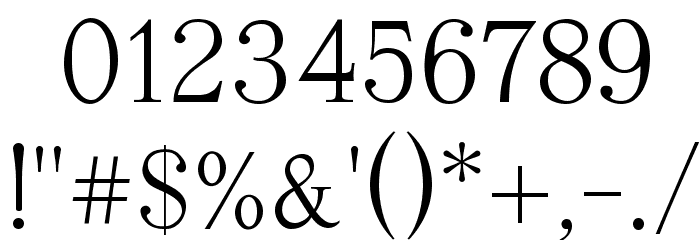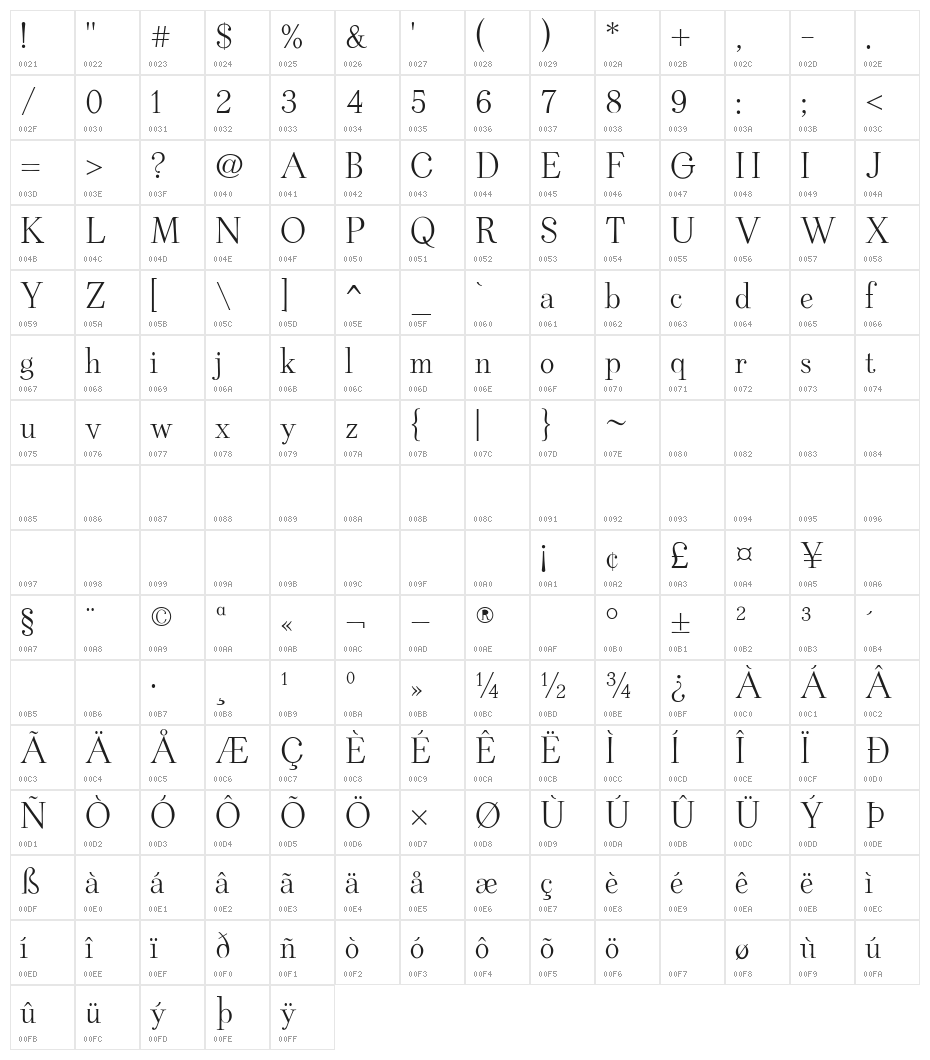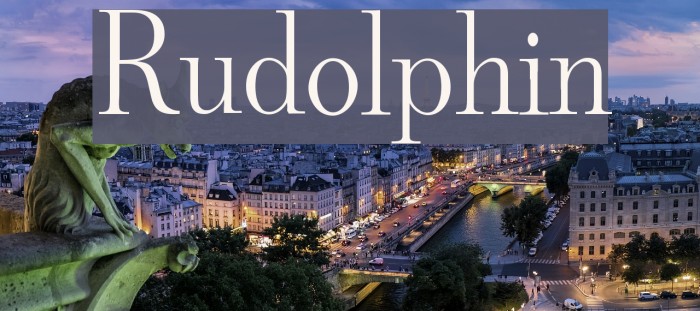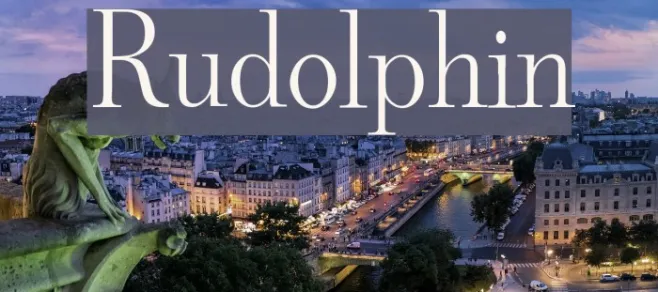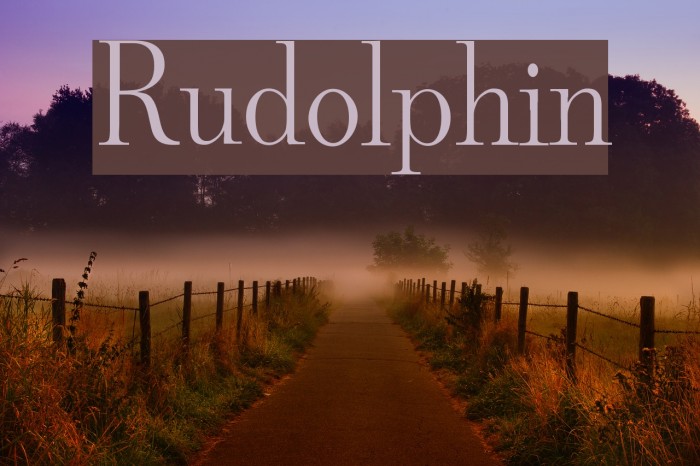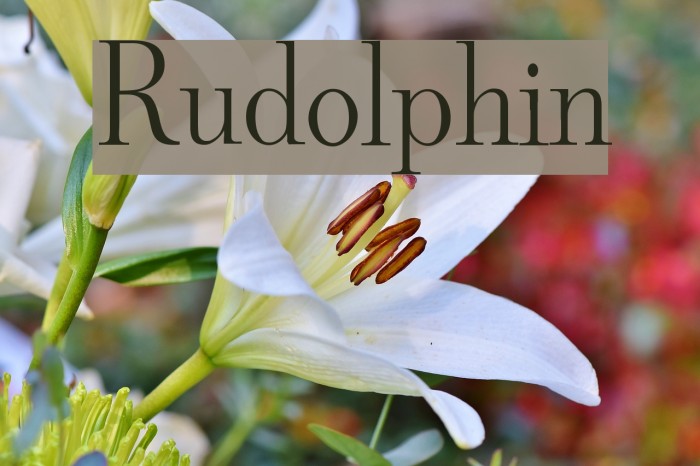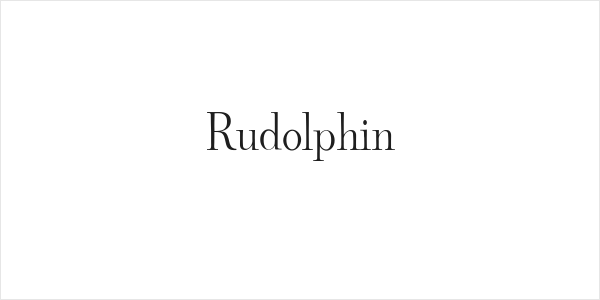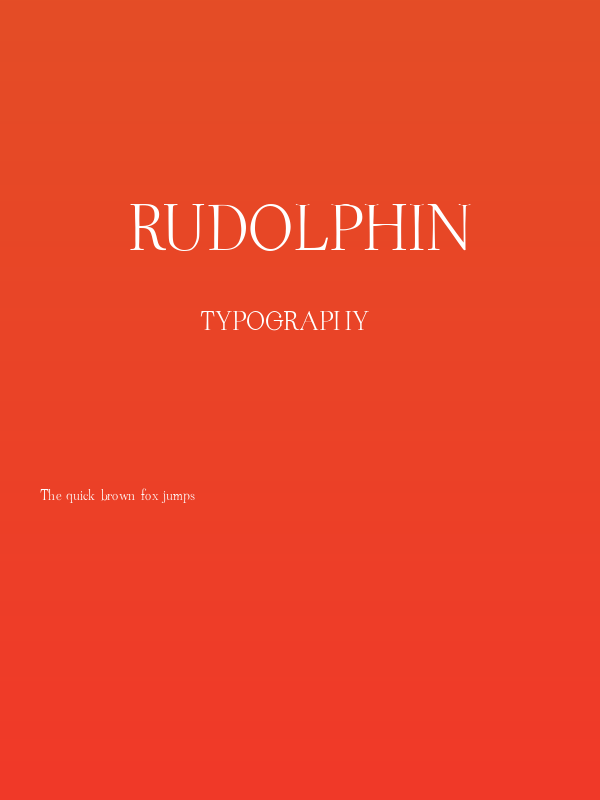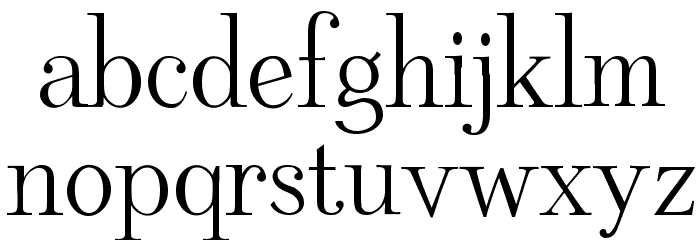
Rudolphin Font
Rudolphin Description
This font exhibits a classic serif style with elegant and refined strokes. The uppercase letters are tall and stately, with a balanced width that gives a sense of stability and tradition. The lowercase letters maintain a consistent design, featuring smooth curves and sharp serifs that enhance readability. The numerals are clear and distinct, matching the overall aesthetic of the alphabet. Special characters are crafted with precision, ensuring they integrate seamlessly with the text. The font's design is suitable for conveying a sense of sophistication and timelessness.